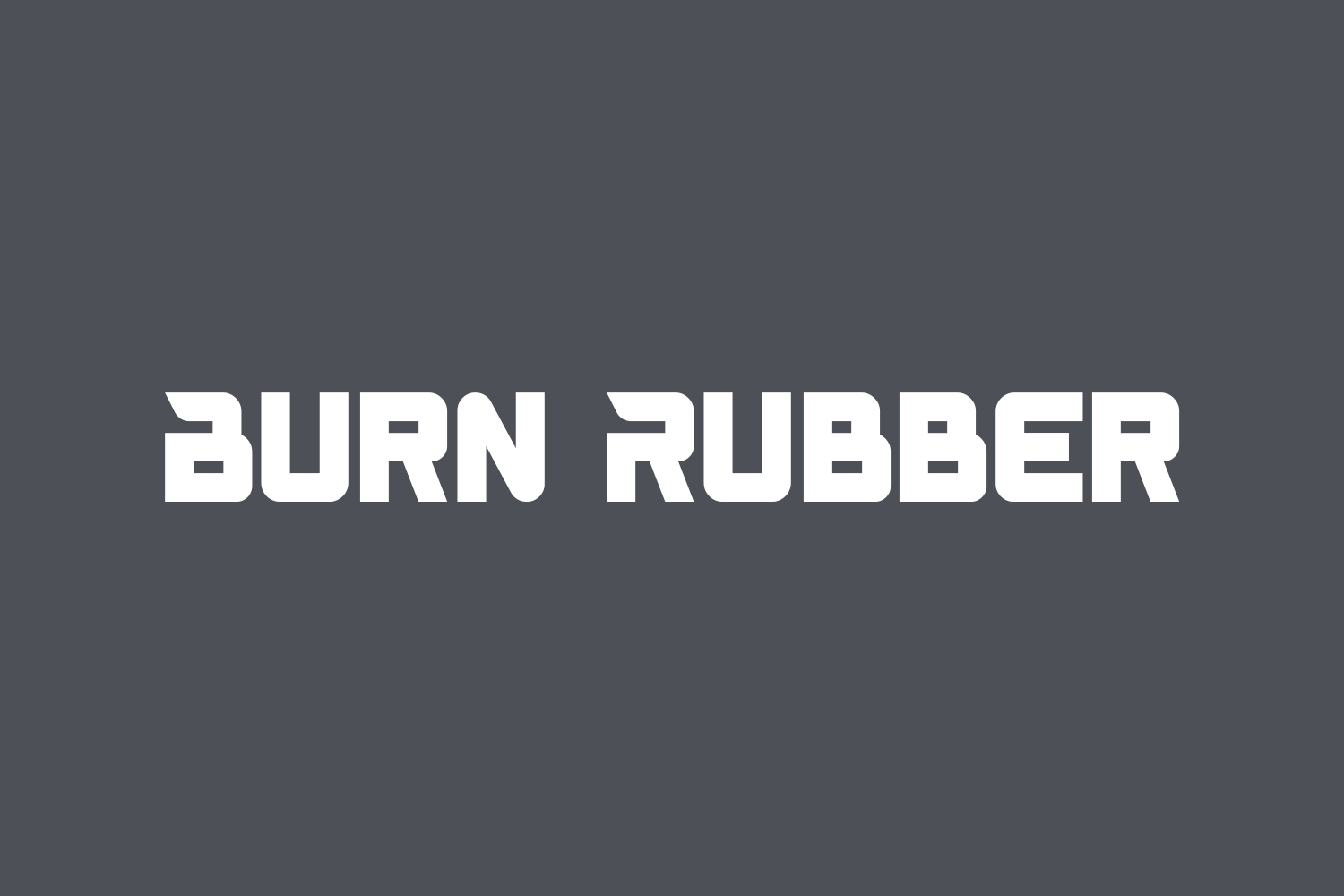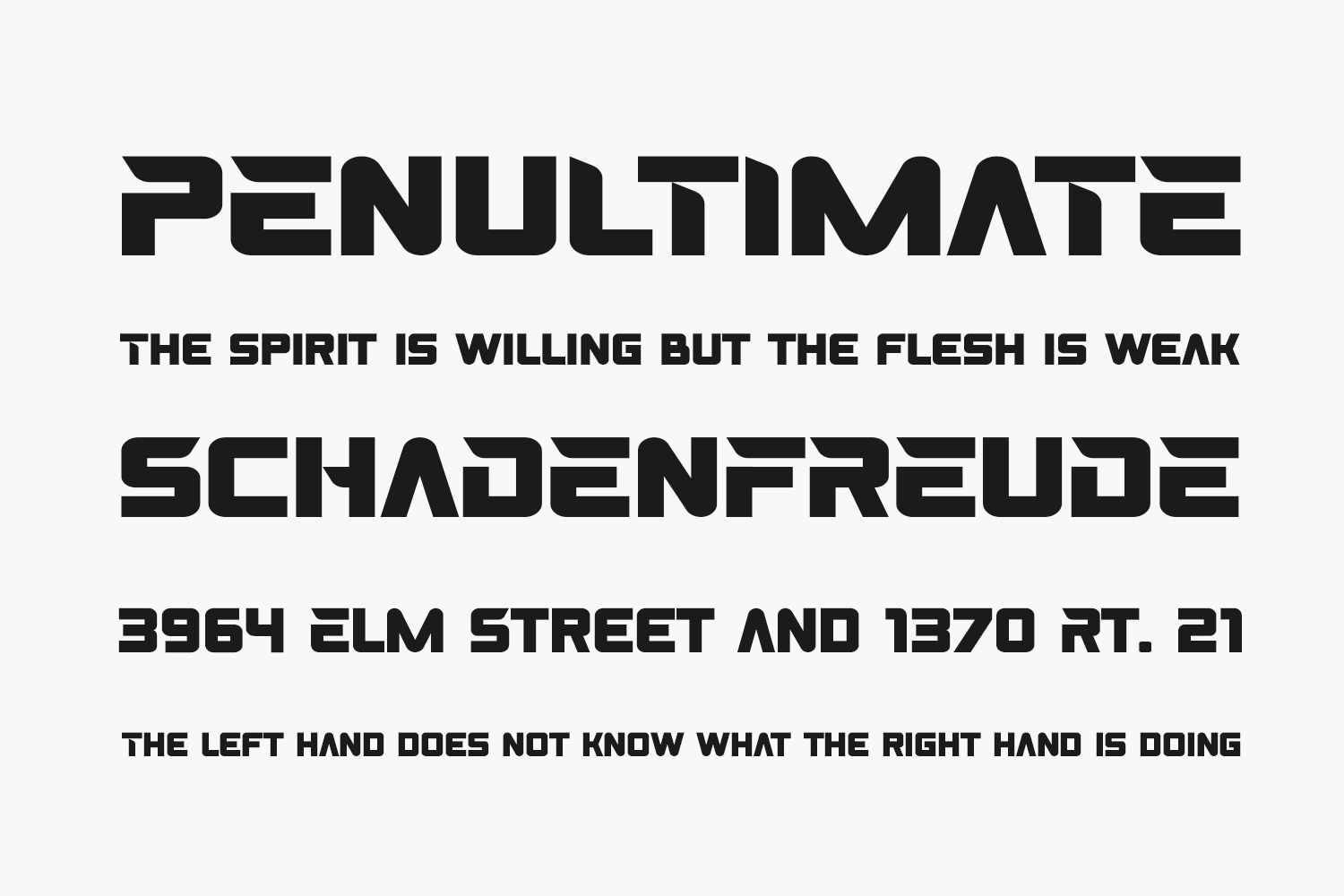
Introducing Burn Rubber Free Font is the speed display font. In a world of rapid motion and fierce competition, Burn Rubber Free Font delivers the need for speed. This dynamic all-caps typeface is tailored for the racing books market, online games, sports event posters, school supplies, movies, YouTube covers, thumbnails, and social media page covers. Embrace the fast-paced energy and ignite your project with this font. Burn Rubber Free Font is free for personal use only. Please purchase the full version for commercial use.